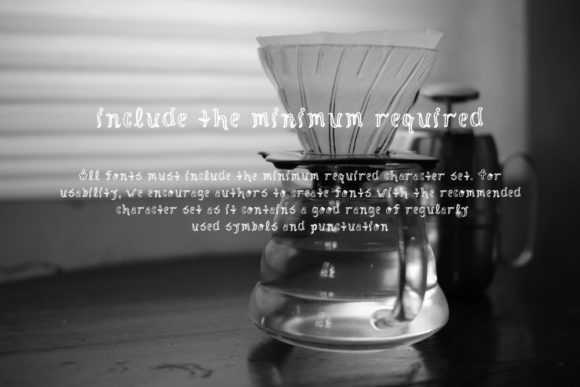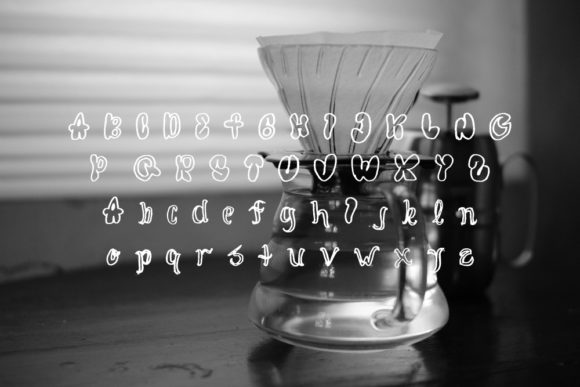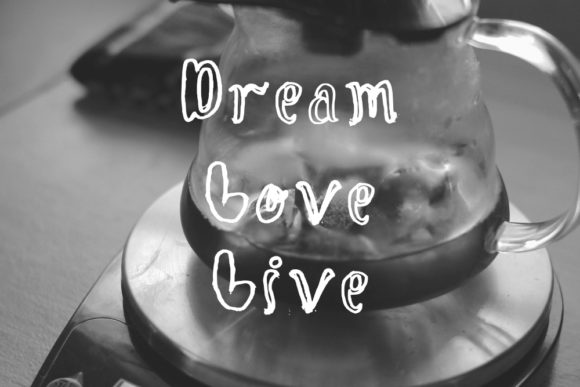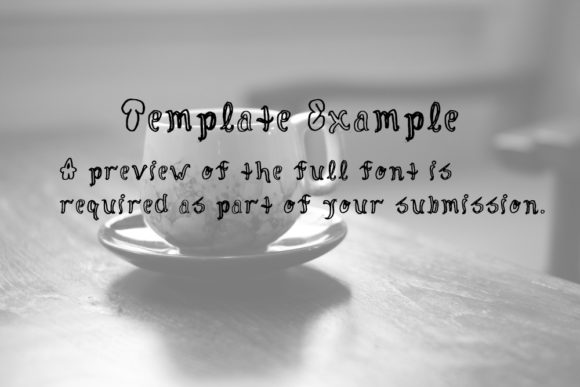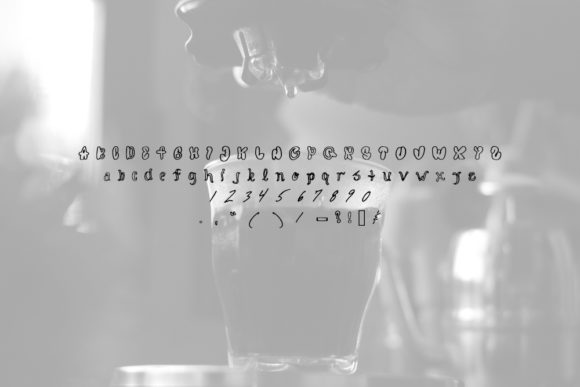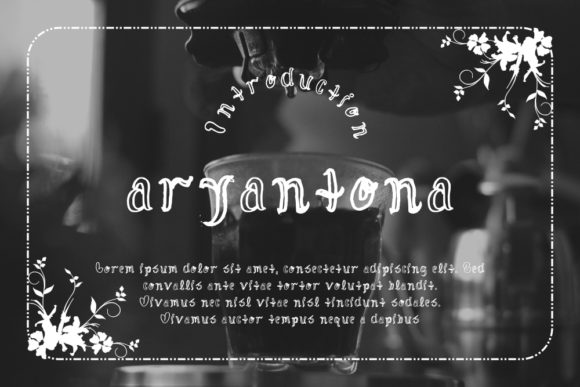
Aryantona Font: The Charming Display Font for Your DIY Projects
Are you a designer or crafter looking for a unique and authentic font to elevate your DIY projects? Look no further than the Aryantona Font! This stunning display font is the result of a beautiful pairing of a brush pen and pencil, giving it an endearing and genuine feel that’s sure to capture the hearts of your audience.
The Story Behind Aryantona Font
The Aryantona Font is a one-of-a-kind creation that showcases the beauty of hand-drawn typography. The font’s creator carefully crafted each letter and character using a combination of a brush pen and pencil, resulting in a truly unique and eye-catching design. The outcome is a font that exudes warmth, personality, and a sense of handmade charm.
What Makes Aryantona Font So Special?
So, what sets the Aryantona Font apart from other display fonts on the market? Here are just a few reasons why this font is a cut above the rest:
- Unique and Authentic Design: The Aryantona Font’s hand-drawn design gives it a genuine and endearing feel that’s hard to find in digital fonts.
- Versatile and Flexible: This font is perfect for a wide range of DIY projects, from crafting and scrapbooking to branding and advertising.
- Easy to Read and Recognize: Despite its unique design, the Aryantona Font is surprisingly easy to read and recognize, making it perfect for titles, headings, and other display text.
How to Use Aryantona Font in Your DIY Projects
Ready to bring the Aryantona Font into your DIY projects? Here are a few ideas to get you started:
- Crafting and Scrapbooking: Use the Aryantona Font to add a personal touch to your scrapbook pages, craft projects, and other paper crafts.
- Branding and Advertising: Add a touch of handmade charm to your brand’s marketing materials, including business cards, brochures, and social media graphics.
- Sign-Making and DIY Projects: Use the Aryantona Font to create eye-catching signs, posters, and other DIY projects that demand attention.
Tips for Getting the Most Out of Aryantona Font
To really make the Aryantona Font shine in your DIY projects, keep the following tips in mind:
- Experiment with Colors and Textures: Don’t be afraid to try out different colors and textures to really make your text pop.
- Pair with Other Fonts: Combine the Aryantona Font with other fonts to create a unique and visually appealing typography scheme.
- Play with Size and Scale: Experiment with different font sizes and scales to add visual interest and hierarchy to your design.
In conclusion, the Aryantona Font is a stunning display font that’s sure to bring a touch of handmade charm to your DIY projects. With its unique and authentic design, versatility, and ease of use, this font is perfect for designers and crafters looking to add a personal touch to their work. So why wait? Download the Aryantona Font today and start bringing your DIY projects to life!
The Aryantona Font is a true gem in the world of typography. Its unique and authentic design makes it a standout among other display fonts, and its versatility and ease of use make it perfect for a wide range of DIY projects. Whether you’re a designer, crafter, or DIY enthusiast, this font is sure to become a favorite in your creative toolkit.